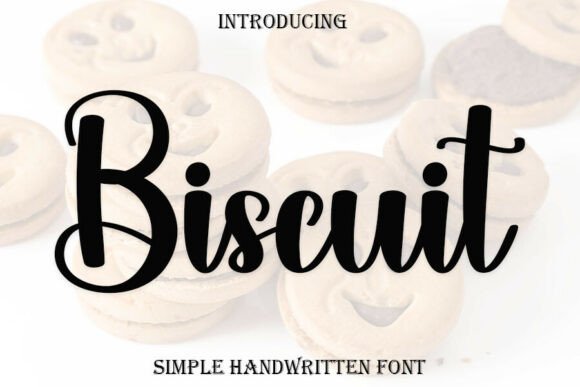
The Biscuit Font: A Delicious Addition to Your Design Toolbox
I’ll never forget the time I was working on a project for a client’s bakery, trying to find the perfect font to showcase their new menu. I scrolled through page after page of Google Fonts, but nothing seemed quite right. That was until I stumbled upon the Biscuit font. Its delicate, handwritten charm instantly captured the warm and inviting atmosphere of the bakery, and I knew I had found the perfect fit.
A Personal Review of Biscuit Font
So, what makes Biscuit font so special? Let’s dive into the good stuff! 😊
- ✨ Unique and eye-catching design: Biscuit font is carefully crafted to add a touch of elegance and whimsy to any design project.
- ✅ Highly versatile: From letters and invitations to food products and titles, this font can be used in a wide range of applications.
- ✅ Easy to read: Despite its delicate nature, Biscuit font is surprisingly legible, making it perfect for both digital and print designs.
Of course, no font is perfect, and Biscuit has a few minor quirks to keep in mind:
- 🤔 Limited use of all-caps: While Biscuit font looks beautiful in uppercase, it’s primarily designed for mixed-case use. Be mindful of this when creating headings or titles.
- ⚠️ Some glyphs may require manual adjustment: Depending on the platform or software you’re using, you may need to tweak certain glyphs to get the best results.
The Story Behind Biscuit Font
According to its creators, Biscuit font was inspired by the delicate, hand-painted signs found in quaint bakeries and cafes. The goal was to capture the warmth and charm of these signs in a digital font that would be both elegant and approachable.
| What is Biscuit font best used for? | Biscuit font is ideal for designs that require a touch of elegance and whimsy, such as letters, invitations, food products, titles, and more. |
| Is Biscuit font suitable for body text? | While Biscuit font is legible, it’s primarily designed for display use. For body text, you may want to choose a font with better readability. |